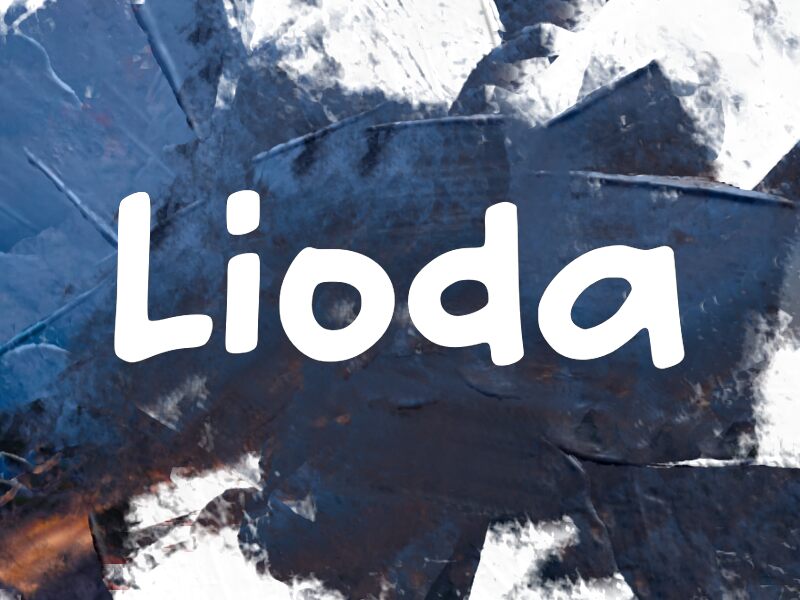
L Lioda font by wep is a free personal use cartoon font designed with a playful approach. The typeface’s informal appearance doesn’t take itself too seriously and conveys a friendly approachable personality. This design features rounded letters with a friendly and approachable feel. It’s suitable for contemporary and casual atmosphere designs.
Appropriate for use in children’s books, L Lioda really shines with youthful audiences. You can also use this typeface in many other common situations such as in advertisements, web pages, games, visual branding, or even as company logos.
Lioda is a stylish and versatile free font that brings elegance and modernity to your design projects. Perfect for branding, invitations, and promotional materials, this font is designed for those looking to make a statement with their typography. Lioda features clean lines and a contemporary aesthetic, making it suitable for both print and digital use.